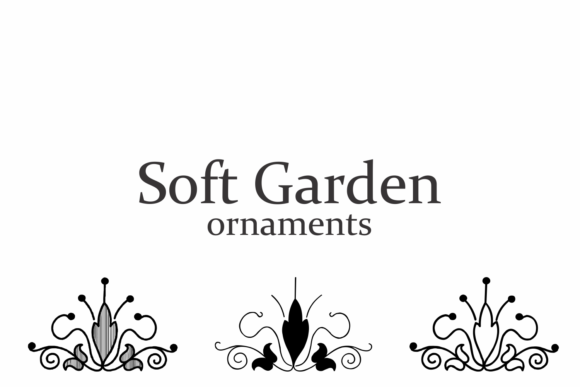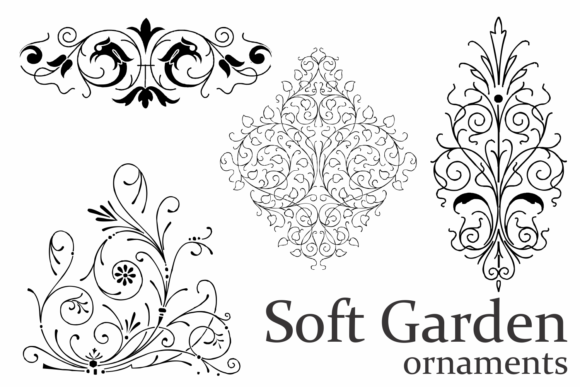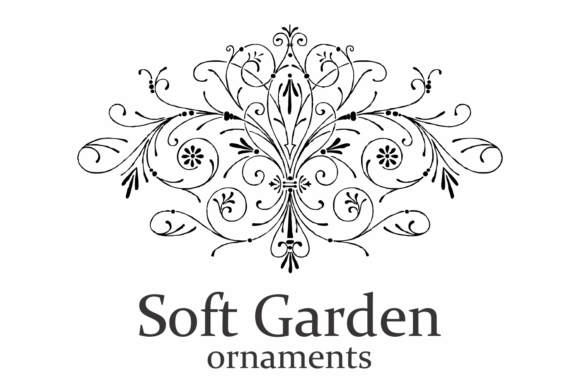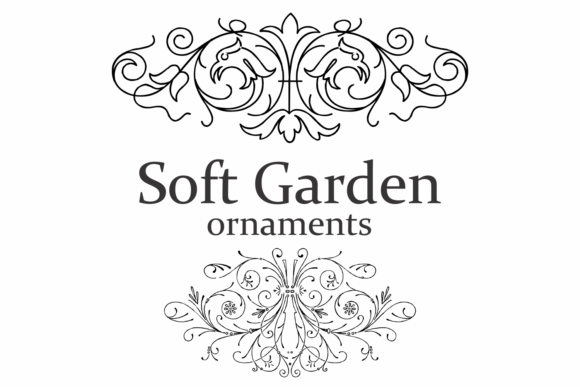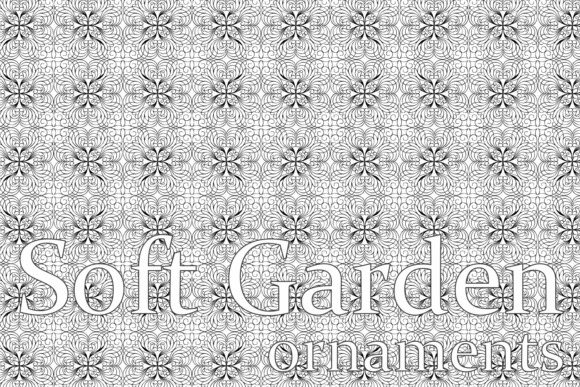
Soft Garden Font
The SoftGarden collection is not just your average set of ornaments; it is a truly remarkable and versatile assortment that has the power to elevate any creative project. Whether you are a seasoned designer or a hobbyist, this collection offers a wealth of possibilities to enhance your work with its artistic flair and unique charm.
One of the standout features of SoftGarden is its availability in font format. This means that you can seamlessly incorporate these ornaments into various applications, such as graphic design software, word processors, or even online platforms. The convenience and flexibility provided by the font format make it incredibly easy to integrate the SoftGarden ornaments into your projects, regardless of the medium or platform you are working with.
Imagine yourself working on an arts and crafts project, where you need that extra touch to make your creation truly captivating. SoftGarden comes to the rescue with its array of intricate and beautifully crafted ornaments. Whether you want to embellish a handmade card, create stunning scrapbook pages, or personalize a gift, the SoftGarden collection has you covered. The ornaments can be seamlessly incorporated into your designs, allowing you to add borders, frames, or delicate flourishes that will instantly elevate your creations to a whole new level.
For those involved in book design or publishing, SoftGarden offers a treasure trove of decorative elements that can transform a simple layout into a work of art. These ornaments can be used to embellish chapter headings, create eye-catching drop caps, or add subtle yet impactful details throughout the pages. The possibilities are endless, and the SoftGarden collection empowers you to unleash your creativity and create visually stunning books that will captivate readers.
Stationery enthusiasts will also find SoftGarden to be a valuable addition to their toolkit. Whether you are designing personalized letterheads, invitations, or business cards, these ornaments can infuse your stationery with elegance and sophistication. From delicate borders that frame your text to intricate embellishments that accentuate your logo, SoftGarden offers a wide range of options to make your stationery truly unforgettable.
In the world of typography, SoftGarden becomes a game-changer. Typography enthusiasts and designers alike can explore the vast possibilities that these ornaments provide. From experimenting with unique headline treatments to creating custom typographic compositions, SoftGarden empowers you to push the boundaries of typography and create designs that leave a lasting impression.
In summary, the SoftGarden collection of ornaments is an exceptional resource for enhancing your creative projects. Its availability in font format ensures convenience and flexibility, allowing you to effortlessly incorporate these ornaments into various applications. Whether you’re an artist, designer, or simply someone with a passion for creativity, SoftGarden offers a wide range of decorative elements to add that extra touch of artistic flair to your work. So go ahead, unleash your imagination, and let the SoftGarden collection transform your projects into stunning masterpieces.